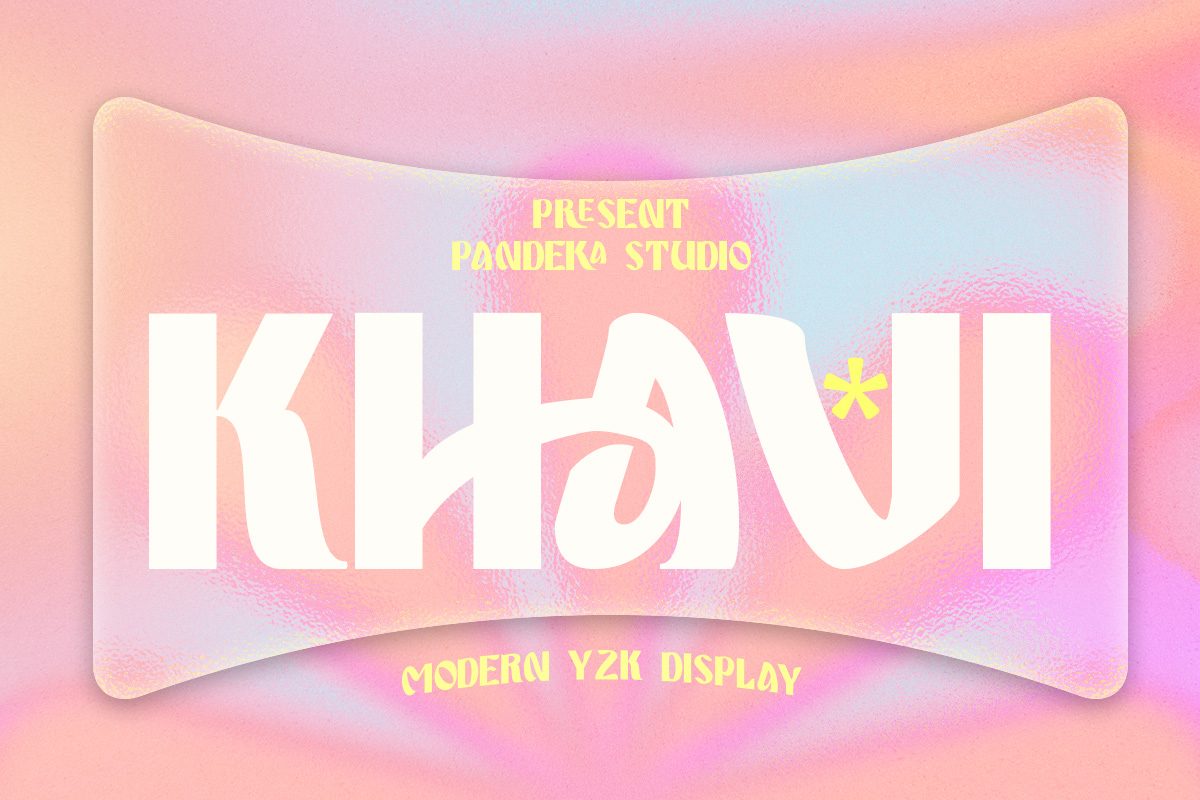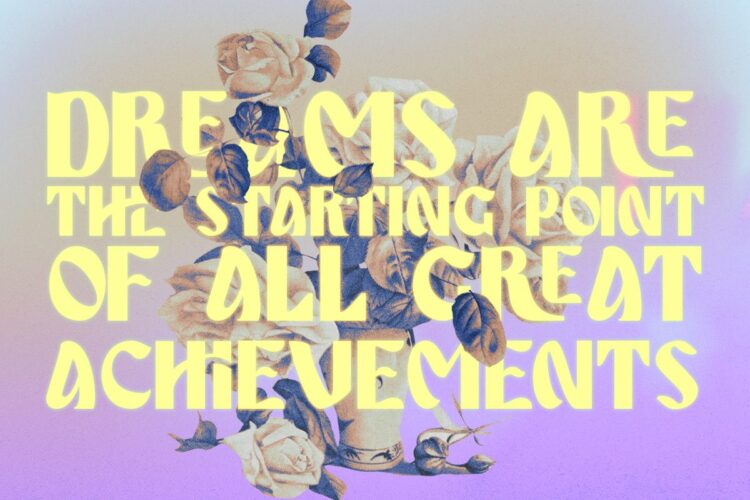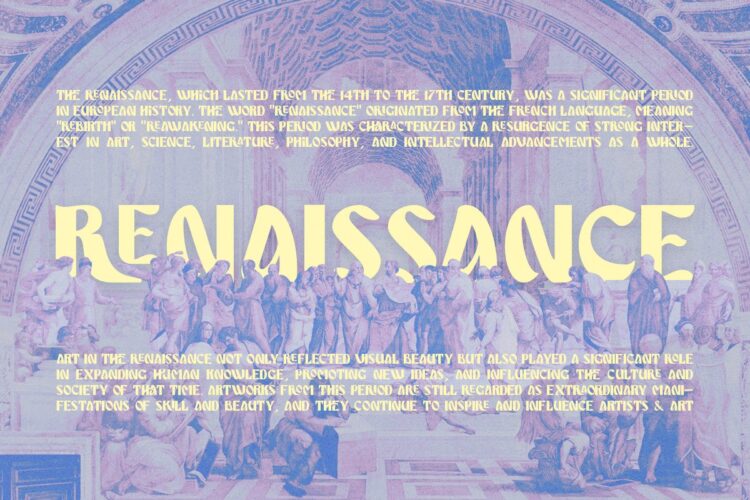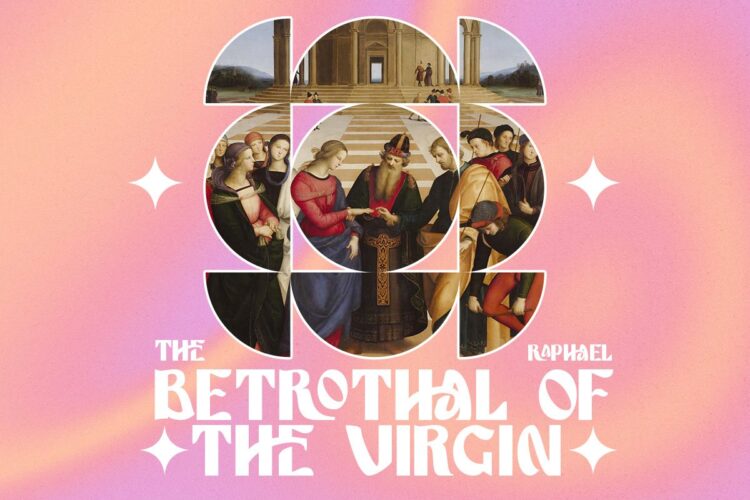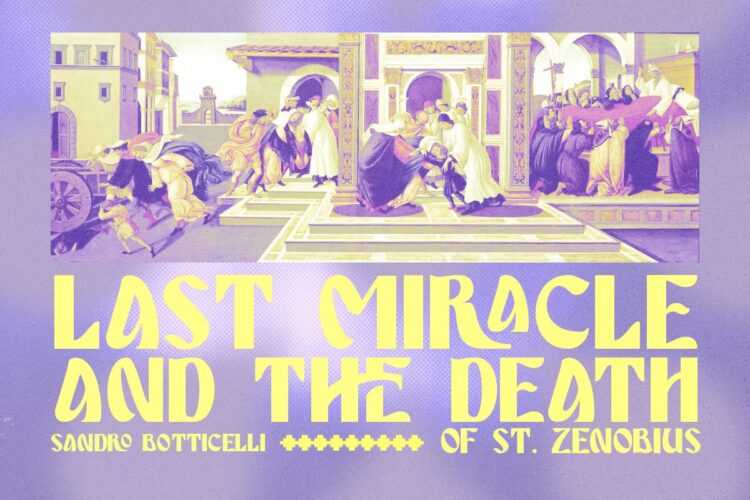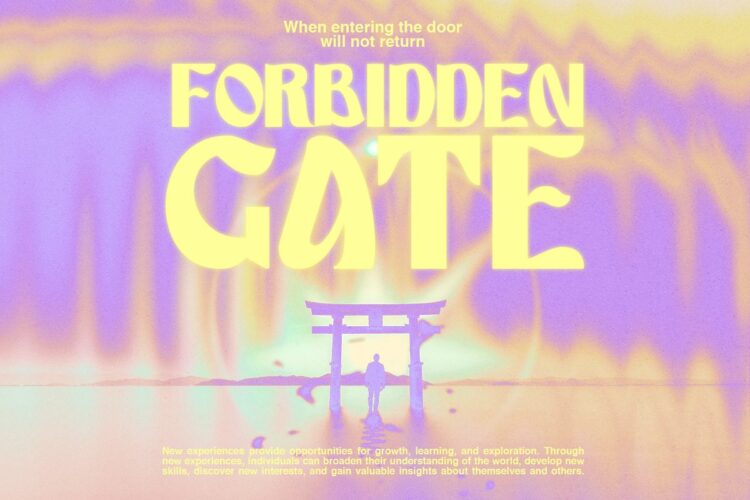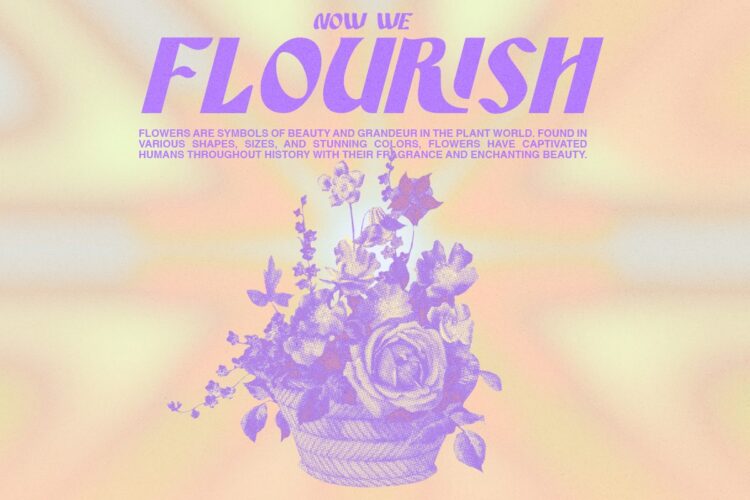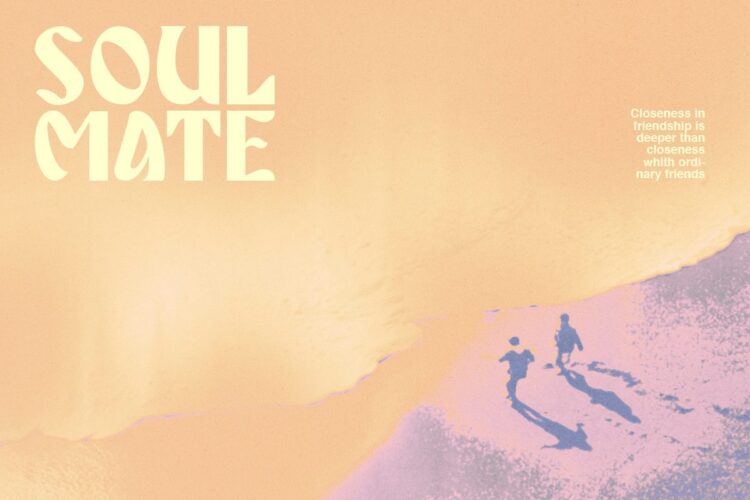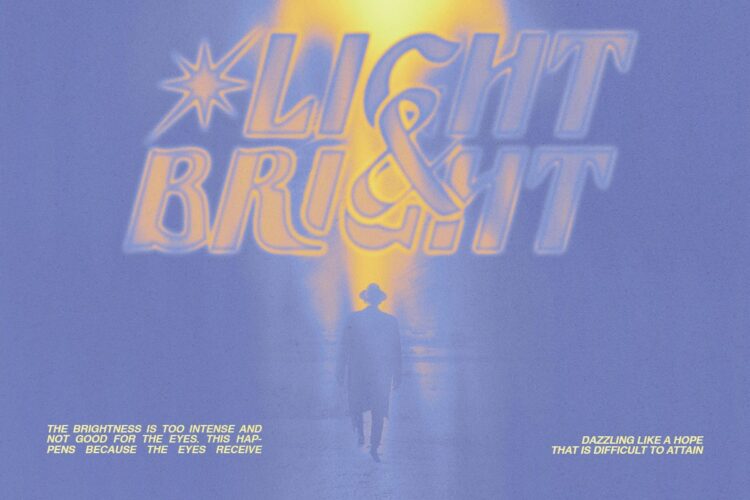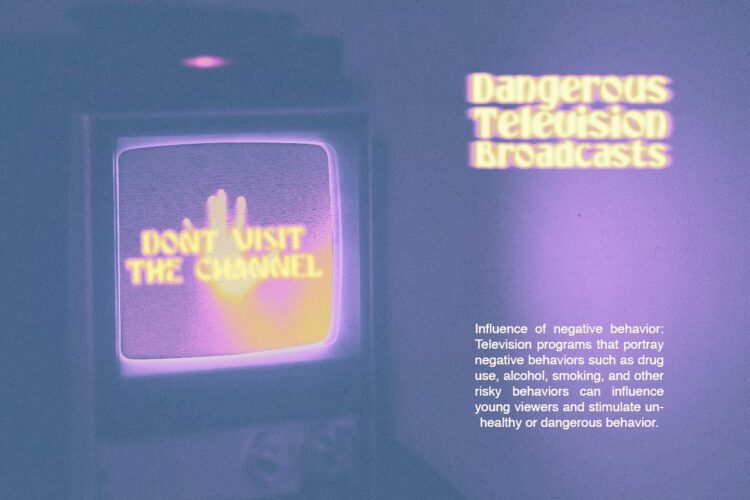
Modern Y2K Display Font
Khavi Regular
Khavi Slant
Introducing Khavi, a vibrant and stylish sans display font that brings the essence of the y2k era to life.
With its sleek lines and captivating gradient covers, Khavi is the perfect choice for your next creative venture. Whether you’re designing a magazine spread, a catchy poster, or inspiring quotes, this versatile font will add a touch of modernity and nostalgia to your projects.
Features:
• Have alternate with all characters (Uppercase & Lowercase)
• Regular and Clean version
• Unique letterforms
Let Khavi take your designs to the next level and make a lasting impression. Get ready to unleash your creativity and embrace the vibrant energy of the y2k era with Khavi font.